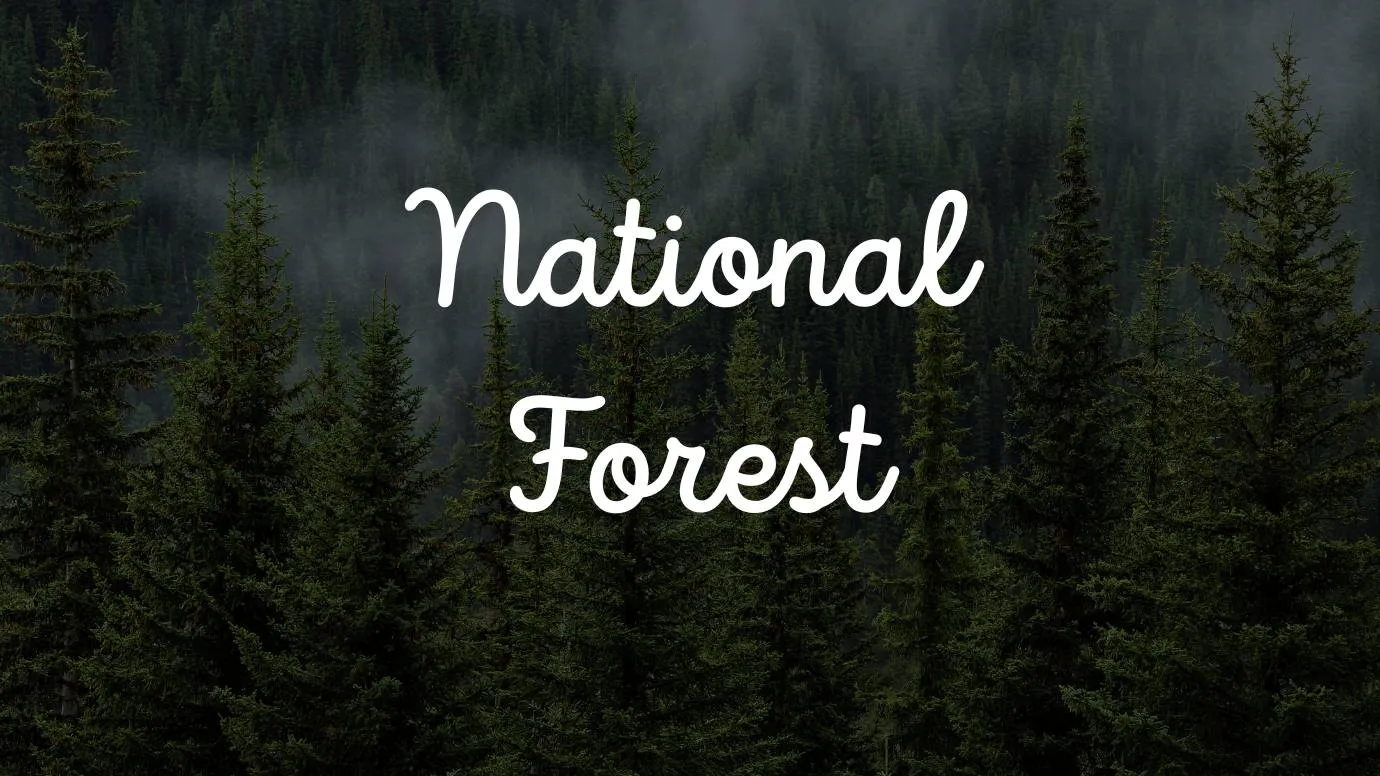
National Forest Font Family is a beautiful typeface. Rachel Kick designed this modern typeface for the first time. It was inspired by National Park Service signs using router bit formed letters. This font has five weights including print bold and extras.
A large number of languages support this unique typeface. This font family has many similar duo fonts but the most alternative to it is brannboll font.
NameNational Forest Font
DesignerUnknown